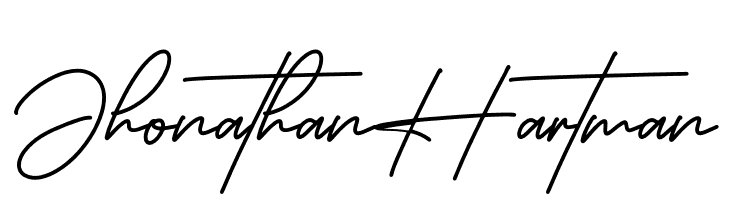
An elegant script font with flowing, cursive letterforms and a classic appearance.
A bold, decorative font with a unique striped pattern, ideal for display use.
A bold, Art Nouveau-inspired font with flowing, organic shapes and intricate detailing.
An elegant script font with intricate swashes and flowing lines.
A bold, decorative font with a retro, marquee-inspired design.
A bold, decorative font with an Art Deco style and intricate patterns.
A bold, gothic-style font with medieval and modern influences, featuring ornate details.
An elegant script font with intricate loops and swashes, ideal for formal designs.
A bold, retro-inspired font with vertical stripes and geometric shapes.
An ornate Victorian Gothic font with intricate swirls and flourishes.
A bold, dynamic font with theatrical flair and unique angular letterforms.
An ornate, decorative font with intricate detailing and a vintage flair.
A whimsical, playful font with quirky serifs and lively embellishments.
An ornate and decorative font with intricate design elements.
A bold, playful font with rounded, decorative characters and whimsical flourishes.
A bold, blocky font with a modern, industrial feel.
A bold, blackletter-inspired font with sharp, angular lines and a medieval aesthetic.
A bold, decorative font with floral motifs integrated into each character.
A bold, decorative font with intricate detailing and a three-dimensional appearance.
An ornate, medieval-inspired blackletter font with decorative uppercase letters.
An elegant script font with flowing, cursive letterforms and ornate flourishes.
A whimsical, hand-drawn style font with playful and dynamic characters.
An ornate Victorian Gothic font with elaborate flourishes and decorative elements.
A whimsical, decorative font with playful curls and loops.
A bold, geometric font with a futuristic and playful style.